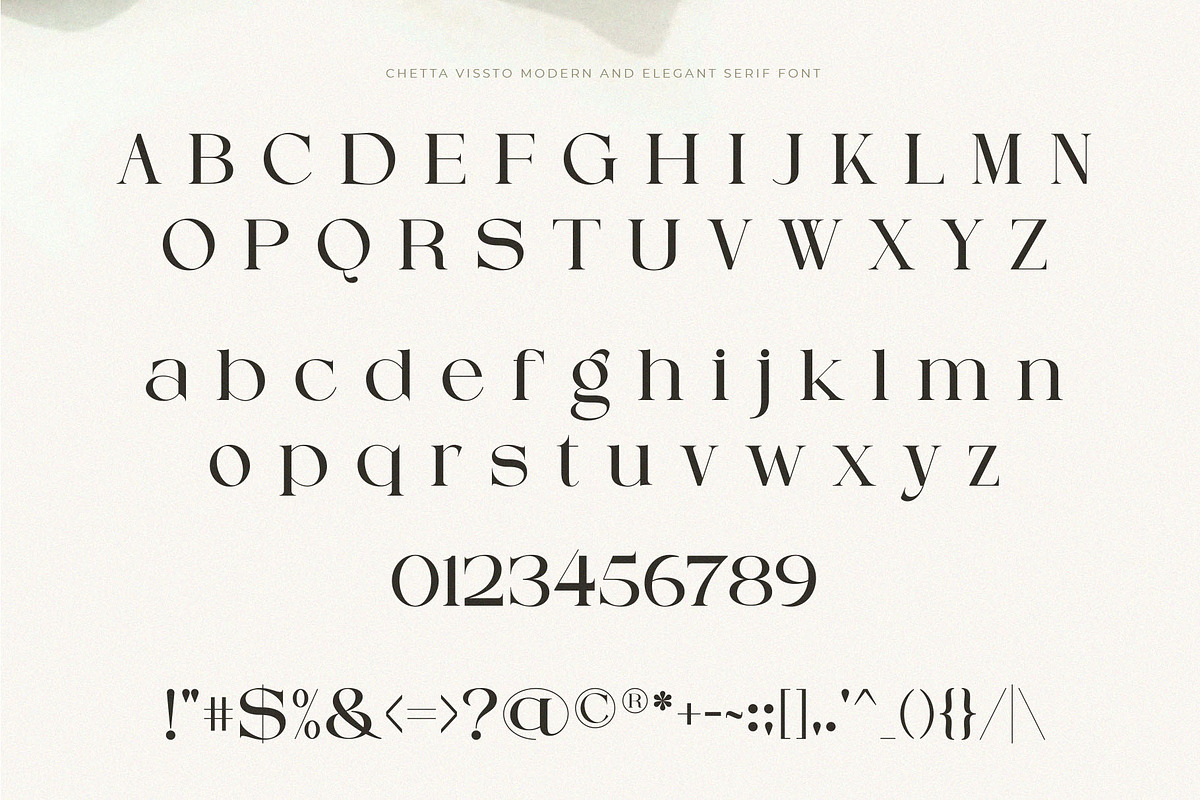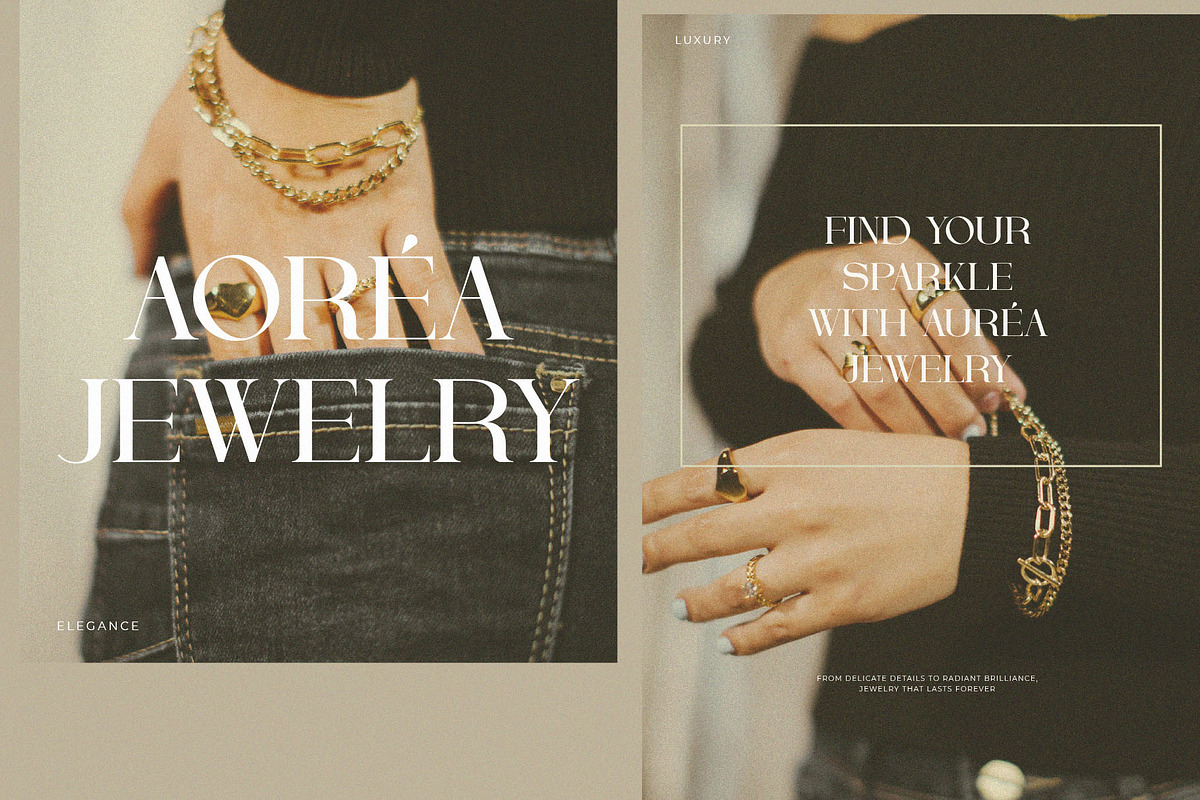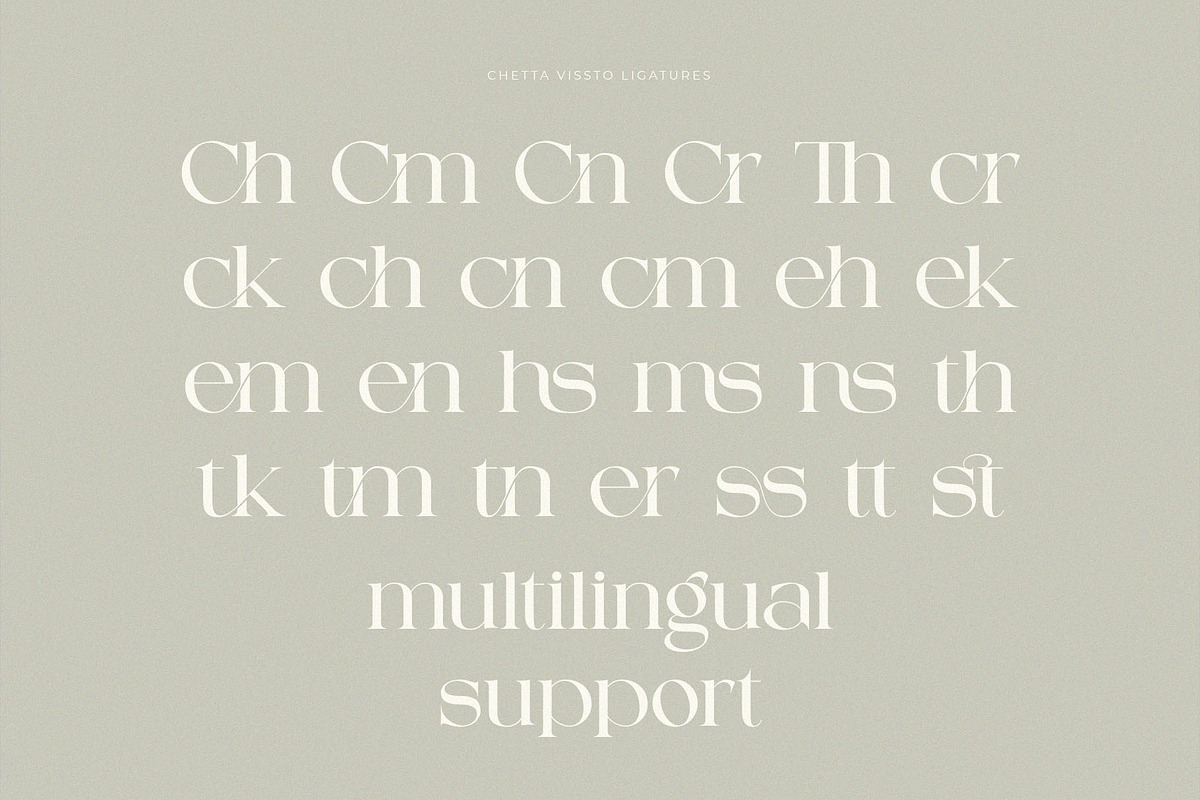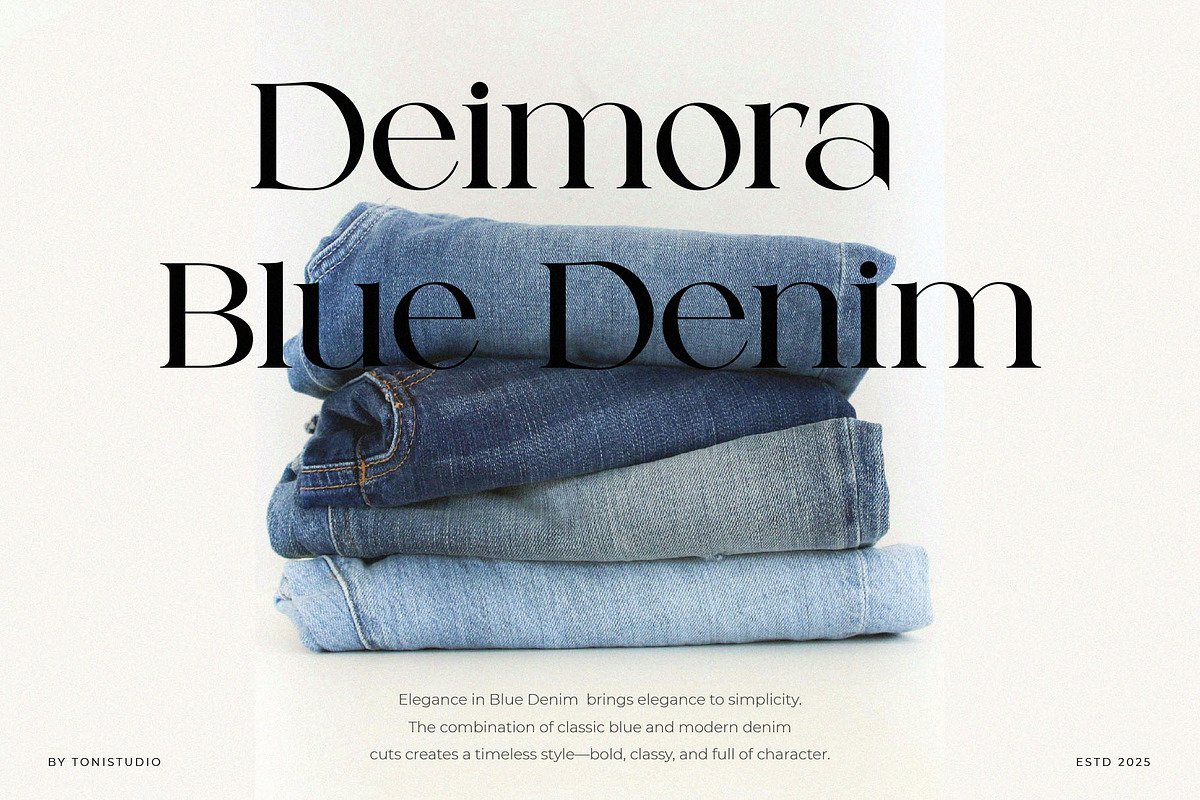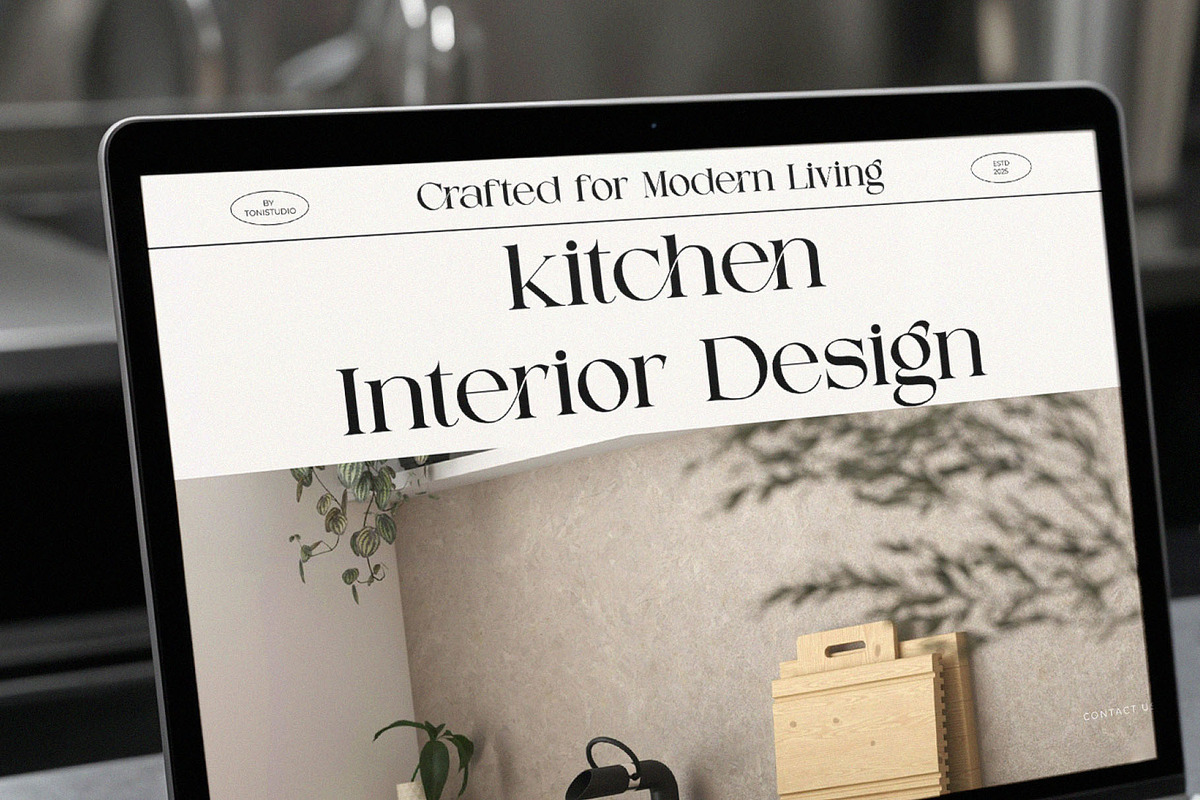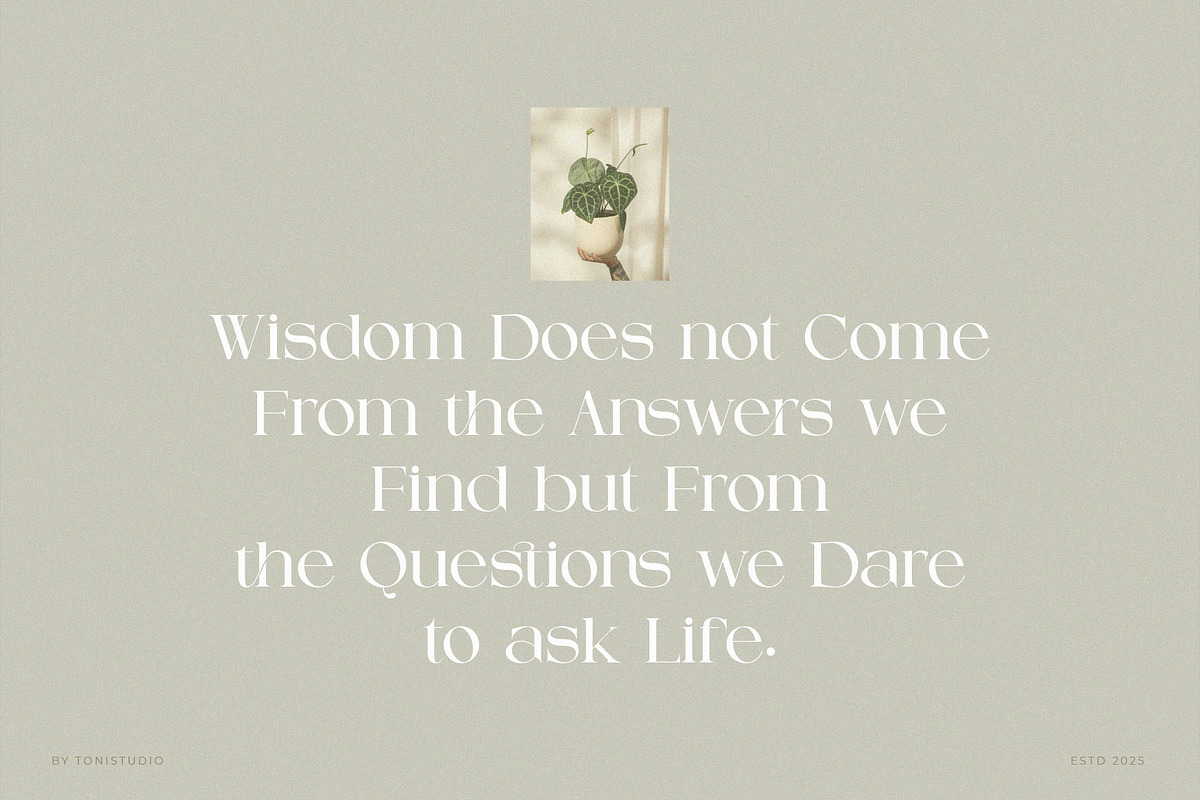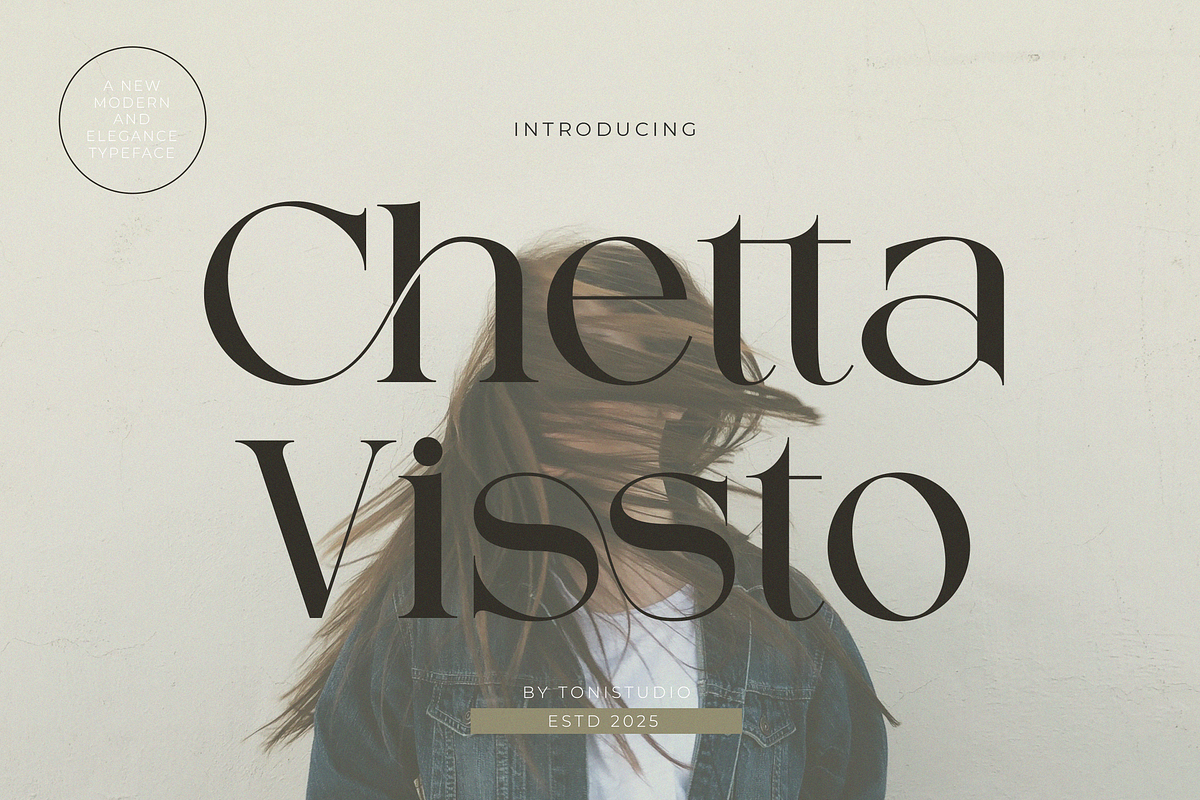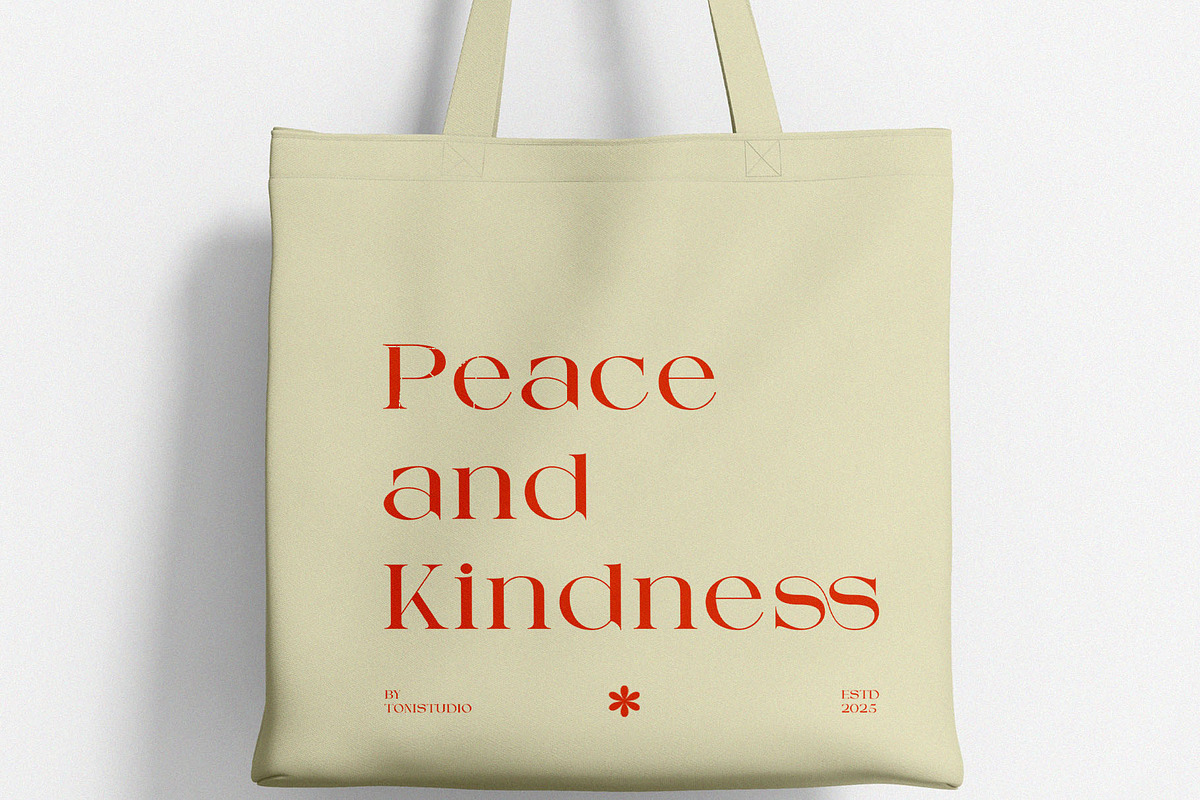
Chetta Vissto
(Chetta Vissto) is a modern serif font with a touch of elegance and luxury. Combining a classic and graceful feel with a futuristic, visionary style, this font is perfect for premium branding, fashion logos, magazine editorials, and even wedding invitations. With its smooth curves and beautiful, thin contrast, Chetta Vissto brings timeless and sophisticated typography to any design.
Stylistic Alternatives
Standard Ligatures